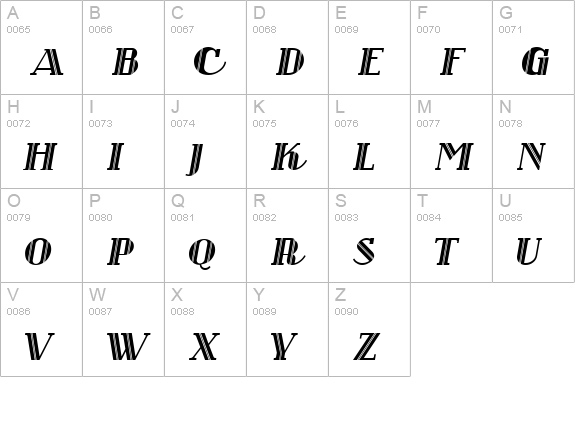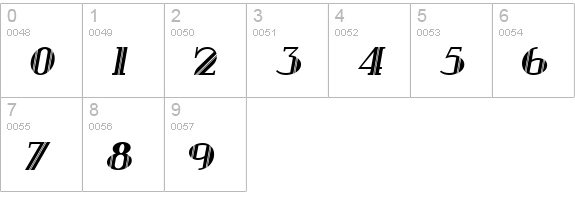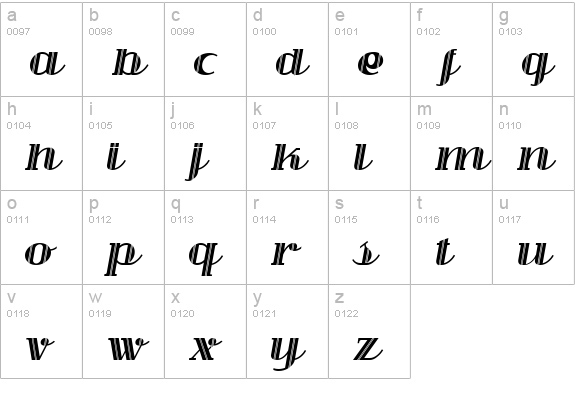
Cine Miroir NF Font Details
Cine Miroir NF font is a captivating and elegant typeface that beautifully captures the essence of classic cinema. With its timeless aesthetic and refined details, this font exudes sophistication and charm. The intricate letterforms and stylish curves make it perfect for adding a touch of vintage flair to any design project. What makes Cine Miroir NF font even more appealing is that it is available for free download at FontsMarket.com. This means that you can easily access this exquisite font without any cost, making it a valuable addition to your font collection. Whether you're working on a movie poster, title sequence, or any other creative project, Cine Miroir NF font is sure to elevate your design with its graceful and cinematic style.